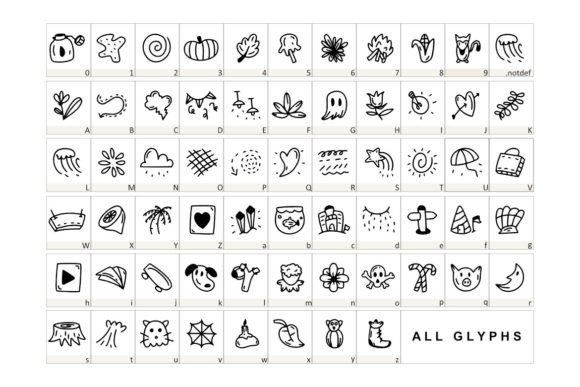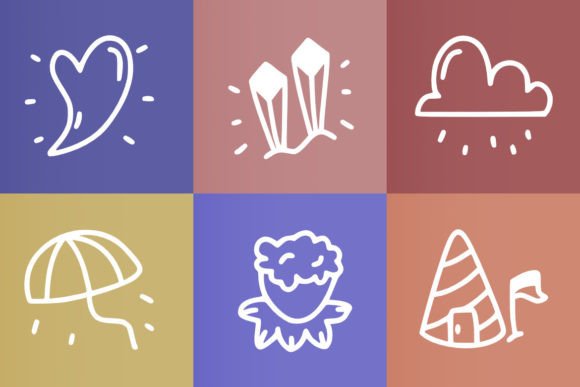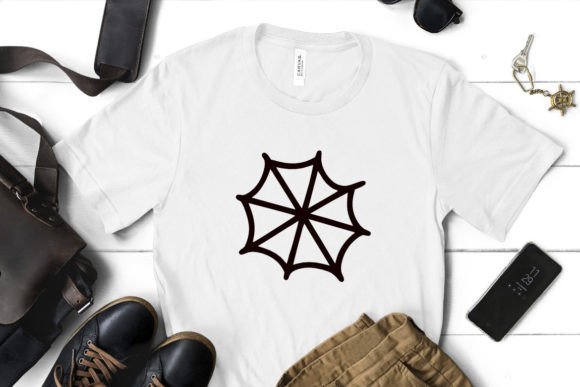
Introduction to Merry Doodles Font
Merry Doodles is a cute and useful dingbats font perfect for a wide variety of projects.
Use it for stickers, posters, t-shirts, cards, apparel graphics, etc ; you will love the results.
Key Features of Merry Doodles Font
Why Choose Merry Doodles Font?
Merry Doodles Font offers exceptional quality and versatility, making it a valuable addition to your design toolkit. Whether you’re creating for personal projects or commercial use, Merry Doodles Font delivers professional results.